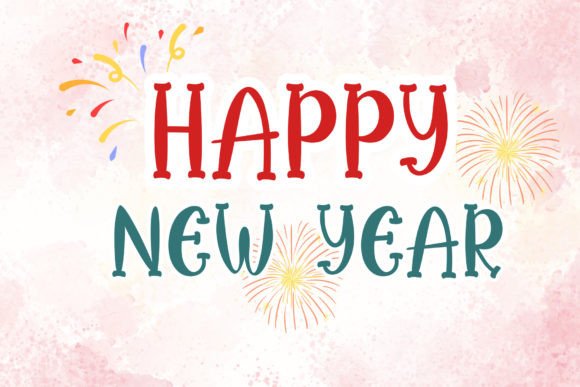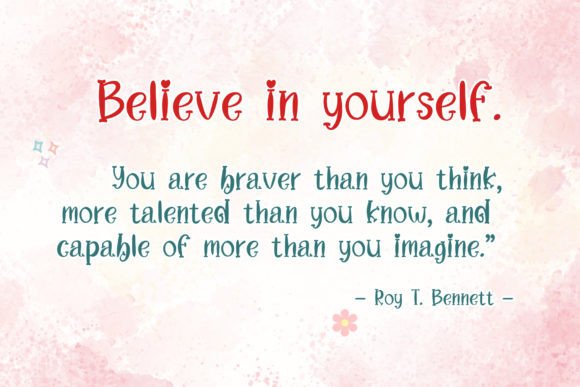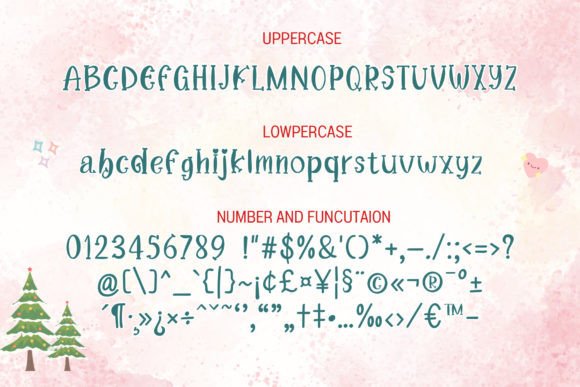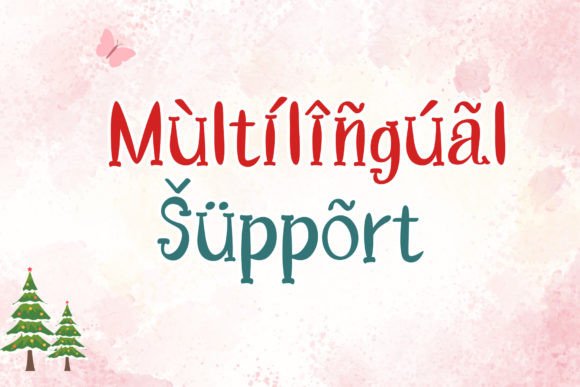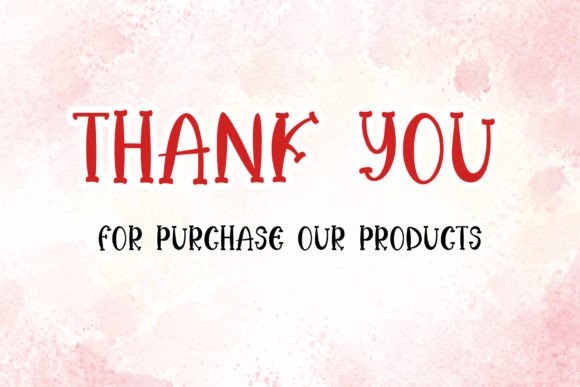
Introduction to Marry Christmas Font
Marry Christmas font is perfect for any Christmas-themed project.
With its bold, traditional letters, Spread the holiday cheer with this festive font This classic font is perfect for any Christmas project.
Key Features of Marry Christmas Font
Why Choose Marry Christmas Font?
Marry Christmas Font offers exceptional quality and versatility, making it a valuable addition to your design toolkit. Whether you’re creating for personal projects or commercial use, Marry Christmas Font delivers professional results.